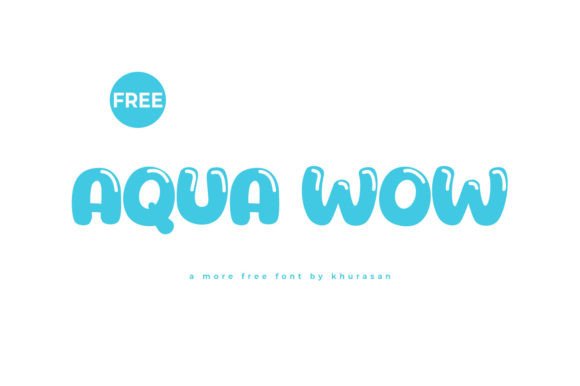
Aqua Wow Font for Crafting, Logos and Print Projects
This font file delivers a bold, wavy typeface with a creative edge, perfect for crafters and designers looking to energize their projects. Aqua Wow brings a splashy, expressive look to everything from logos and product labels to handmade goods and printable decor. It is structured for clarity in both small and large formats, making it versatile across platforms.
- Custom product labels and logo marks
- Printable posters, cards, and tags
- Apparel graphics and tote designs
- Scrapbooking elements and titles
- Party decor, signage, and event branding
- Playful, fluid lettering with standout appeal
- Optimized for logos, signage, and handmade products